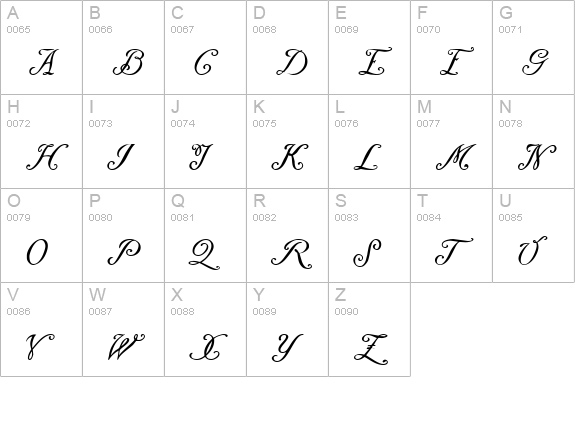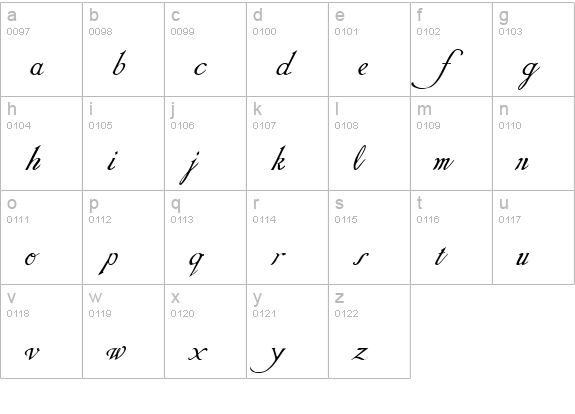
Daresiel Demo Font Details
Daresiel Demo font is a stunning and elegant typeface that exudes sophistication and charm. Its flowing curves and unique letterforms make it perfect for a wide range of design projects, from invitations to branding to social media graphics. This font is sure to add a touch of class to any design. And the best part? Daresiel Demo font is completely free to download at FontsMarket.com. With just a few clicks, you can enhance your projects with this beautiful and versatile typeface. Don't miss out on the opportunity to elevate your designs with Daresiel Demo font - download it today and let your creativity shine!